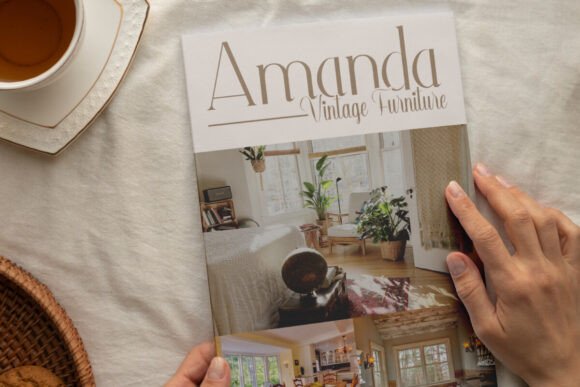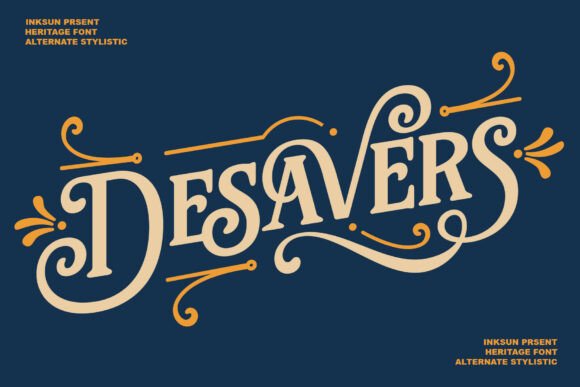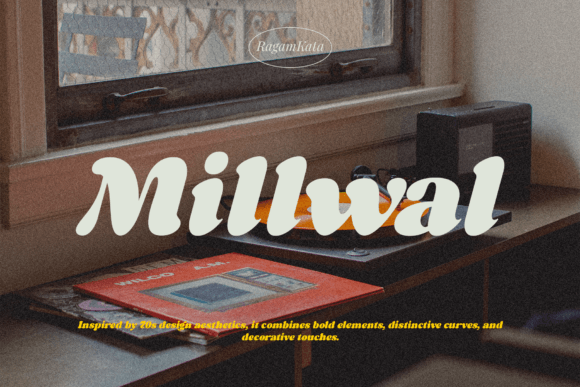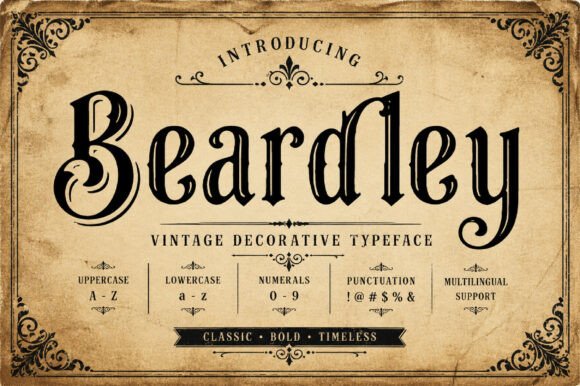
Best 11 Vintage Serif Fonts to Elevate Your Typography
Finding the top 11 vintage serif fonts for your creative toolkit is essential when crafting high-end corporate branding, unique brand logos, and stunning editorial layouts that demand immediate attention. Whether you are designing for print or digital screens, these handpicked typographic masterpieces will instantly wrap your artwork in a beautiful cloak of nostalgia, legacy-style authority, and timeless elegance.
American Vintage Font: A Timeless Masterpiece for Your Serif Fonts Library
Journey into the heart of classic design history with American Vintage, a stylish, heritage-inspired typeface designed to pay homage to the iconic typography of bygone eras. Showcasing timeless elegance and beautifully refined curves, this stunning option captures the true essence of nostalgic Americana, making it a spectacular addition to your library of premium Serif Fonts.
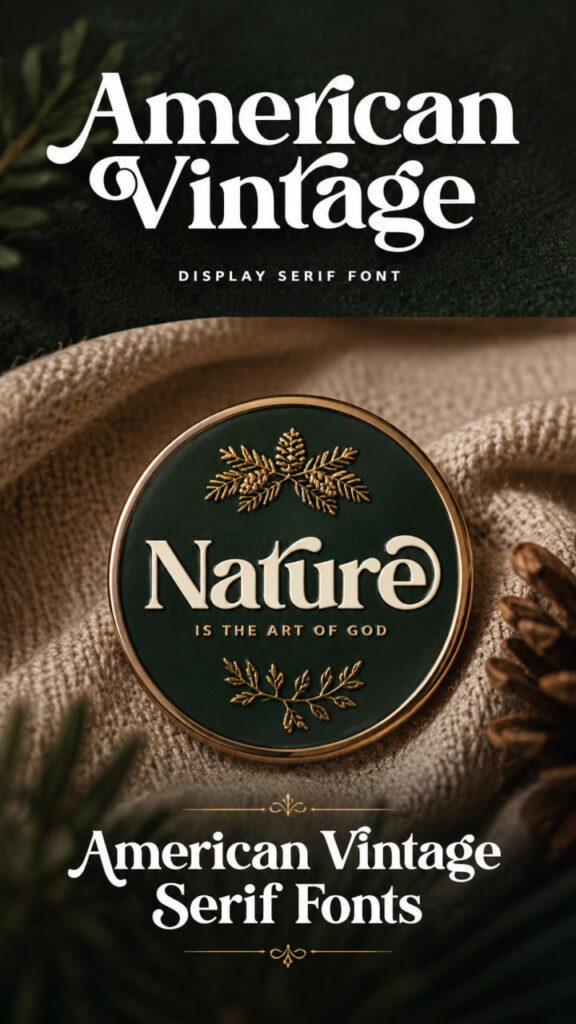
It is the absolute premier choice for creators looking to inject a sense of old-school prestige and genuine craftsmanship into their layouts. Whether you are crafting prominent editorial headers, vintage-themed packaging, retro corporate identities, or a highly memorable vintage logotype, American Vintage ensures your text looks incredibly sophisticated, structured, and emotionally resonant. Let this elegant design bring its classic warmth to your next layout and watch your storytelling effortlessly stand out with historical pride.
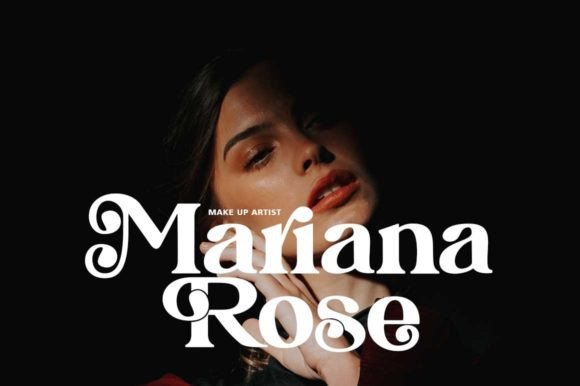
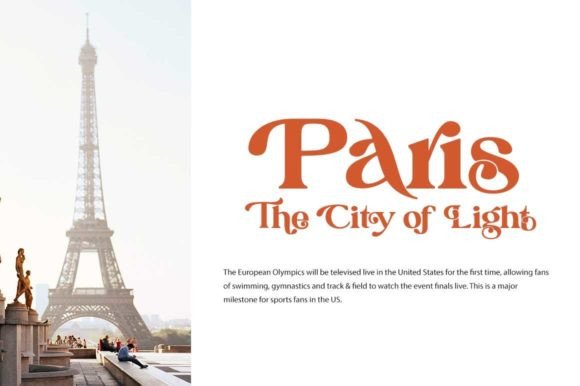
Antique Atlas Font: A Majestic Gem for Your Serif Fonts Library
Step into a world of historic exploration and archival artistry with Antique Atlas, a drop-dead gorgeous typeface designed to capture the authentic spirit of cartography and age-old tales. Seamlessly fusing traditional charm with modern digital precision, this breathtaking addition to your Serif Fonts collection brings the unmatched beauty of historical printing straight into the modern era. Every character feels like a piece of living history, meticulously engineered to ensure your layouts command deep respect and admiration.
This highly versatile design strikes a flawless balance between elaborate decorative flair and clean, everyday readability. Whether you are crafting classic book covers, sophisticated invitations, heritage branding, or a deeply memorable vintage logo, Antique Atlas ensures your message is delivered with absolute clarity and undeniable grace. Broaden your creative horizons by integrating this majestic typeface into your toolkit, and let its distinguished lines guide your visual narratives to a lasting, unforgettable destination.
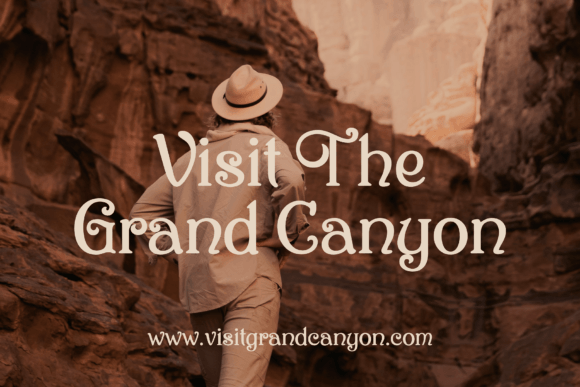
Old Master Font: Bringing Medieval Grandeur to Vintage Serif Fonts
Step into a realm of chivalry and dramatic artistry with Old Master, a lavishly detailed blackletter typeface built to infuse modern designs with historical prestige. Echoing the meticulously hand-inked manuscripts of medieval scribes, this highly ornamental choice stands out as a luxurious showcase of Serif Fonts heritage. Every single letter behaves like a piece of visual poetry, adorned with intricate curls and leafy flourishes that capture the authentic spirit of Renaissance lettering.
Designed with high-contrast weight and sharp modern precision, it ensures your text remains strikingly legible even in dense layouts. It is the premier selection for designing gothic wedding stationery, historical book covers, and theatrical posters, or crafting a bold vintage brand emblem. Choose Old Master to give your creative canvases a powerful sense of drama and undisputed legacy-style authority.
Showhan Vintage Font: High-Fashion Luxury Meets Nostalgic Charm
Immerse your audience in a world of high-fashion allure and editorial prestige with Showhan, a modern yet classy serif typeface engineered to exude ultimate luxury. Perfectly capturing the delicate balance between contemporary minimalism and old-school glamour, this gorgeous selection acts as a stunning bridge to the rich heritage of classic Serif Fonts. Its striking letterforms bring an instant aesthetic charm to high-end projects, making it effortless to weave a thread of chic nostalgia into your modern creative assets.
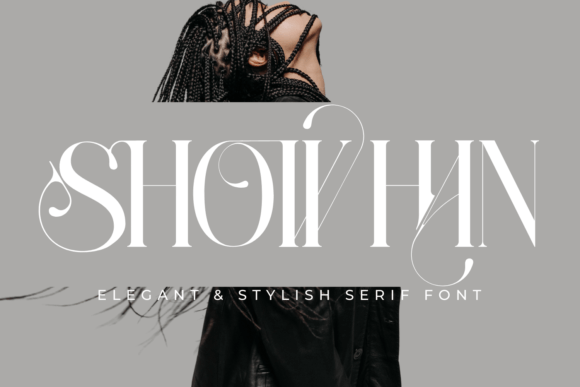
Built with robust OpenType versatility, this design comes fully loaded with over 100 custom ligatures, unique alternates, and extensive multilingual support to give your layouts a highly tailored, bespoke finish. It shines as a premier choice for editorial headers, luxury cosmetics branding, elegant magazine spreads, and formal event invitations. Make Showhan your go-to selection whenever your design demands an authentic, high-impact vintage look that commands deep appreciation and immediate attention.
Vintage Fashion Font: Elevating Modern Designs with Renaissance Harmony
Awaken the timeless spirit of classical proportions with Vintage Fashion, an exquisite typeface deeply rooted in the artistic rebirth of the Renaissance era. Meticulously sculpted to offer breathtaking typographic balance across any medium, this stunning selection represents a highly refined milestone among modern Serif Fonts. Its graceful structures and elegant details make it incredibly easy to infuse your creative canvases with an organic, historical symmetry.
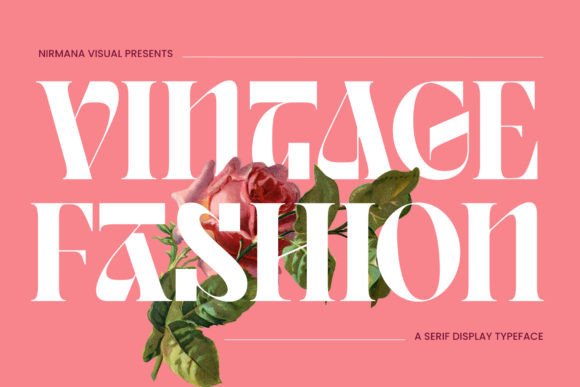
Choosing the right typography is the ultimate way to give your brand a distinct, unforgettable voice. Each of these outstanding Vintage Serif Fonts offers a flawless blend of nostalgic charm and modern precision, ensuring your creative layouts, custom logos, and branding projects stand out with pure editorial elegance.